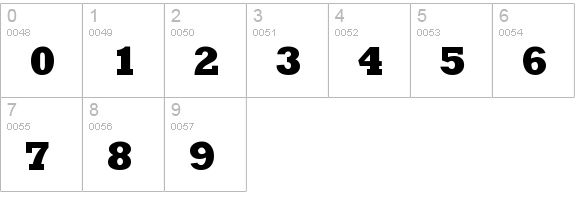
Rockney Extrabold is an extra-heavy, attention-grabbing variant in the Rockney typeface family \xE2\x80\x94 well suited to high-impact headlines, posters, and bold branding.
Introducing Rockney Extrabold font, a bold and dynamic typeface that exudes strength and confidence. With its thick strokes and sharp edges, Rockney Extrabold commands attention and makes a powerful statement in any design project. This versatile font is perfect for headlines, posters, logos, and more, adding a touch of modern flair and impact to your work. What makes Rockney Extrabold even more appealing is that it is available for free download at FontsMarket.com. Yes, you read that right - you can freely access this stunning font and elevate your designs without any cost. Don't miss out on the opportunity to enhance your projects with the bold and striking Rockney Extrabold font today!